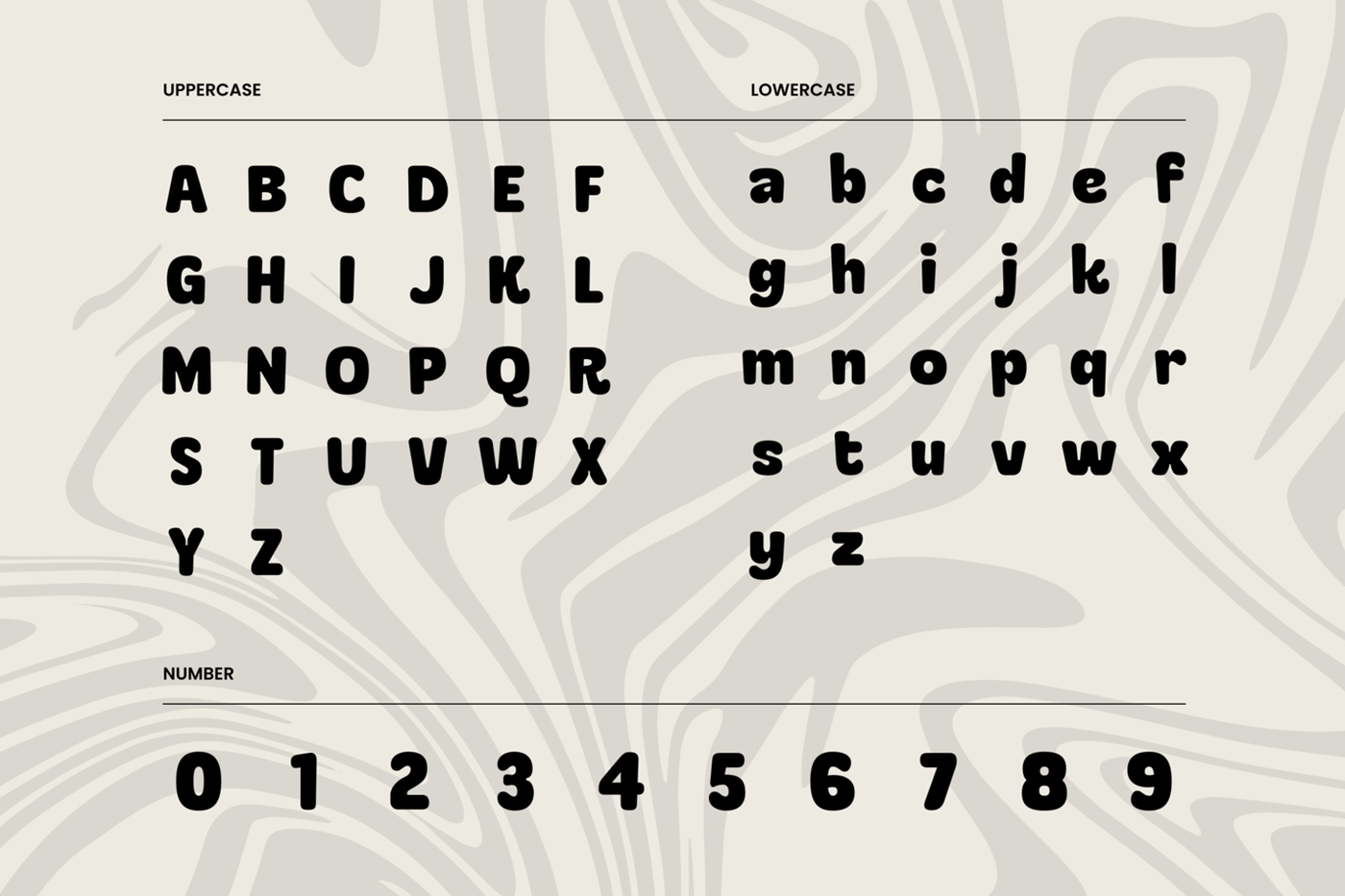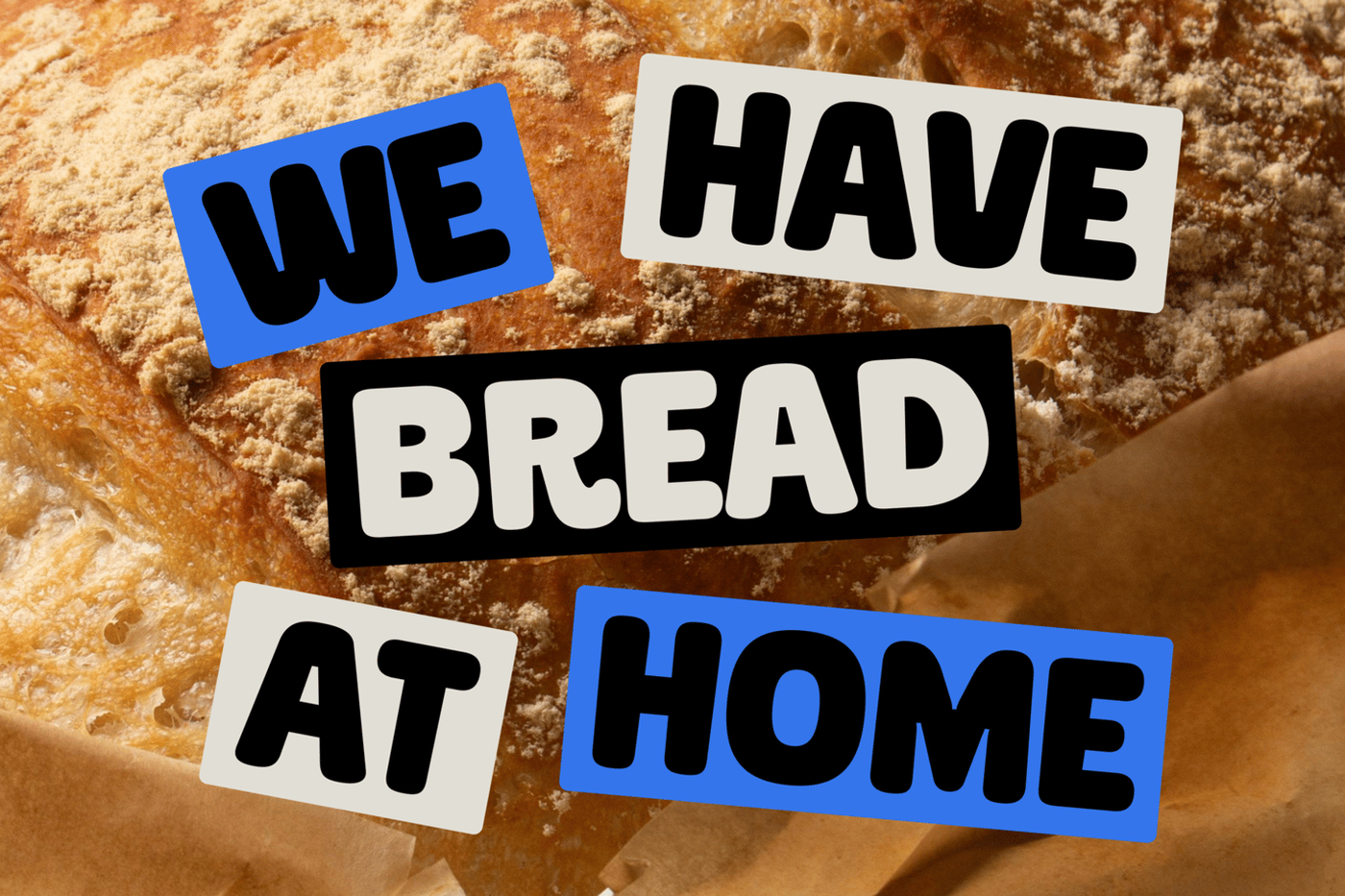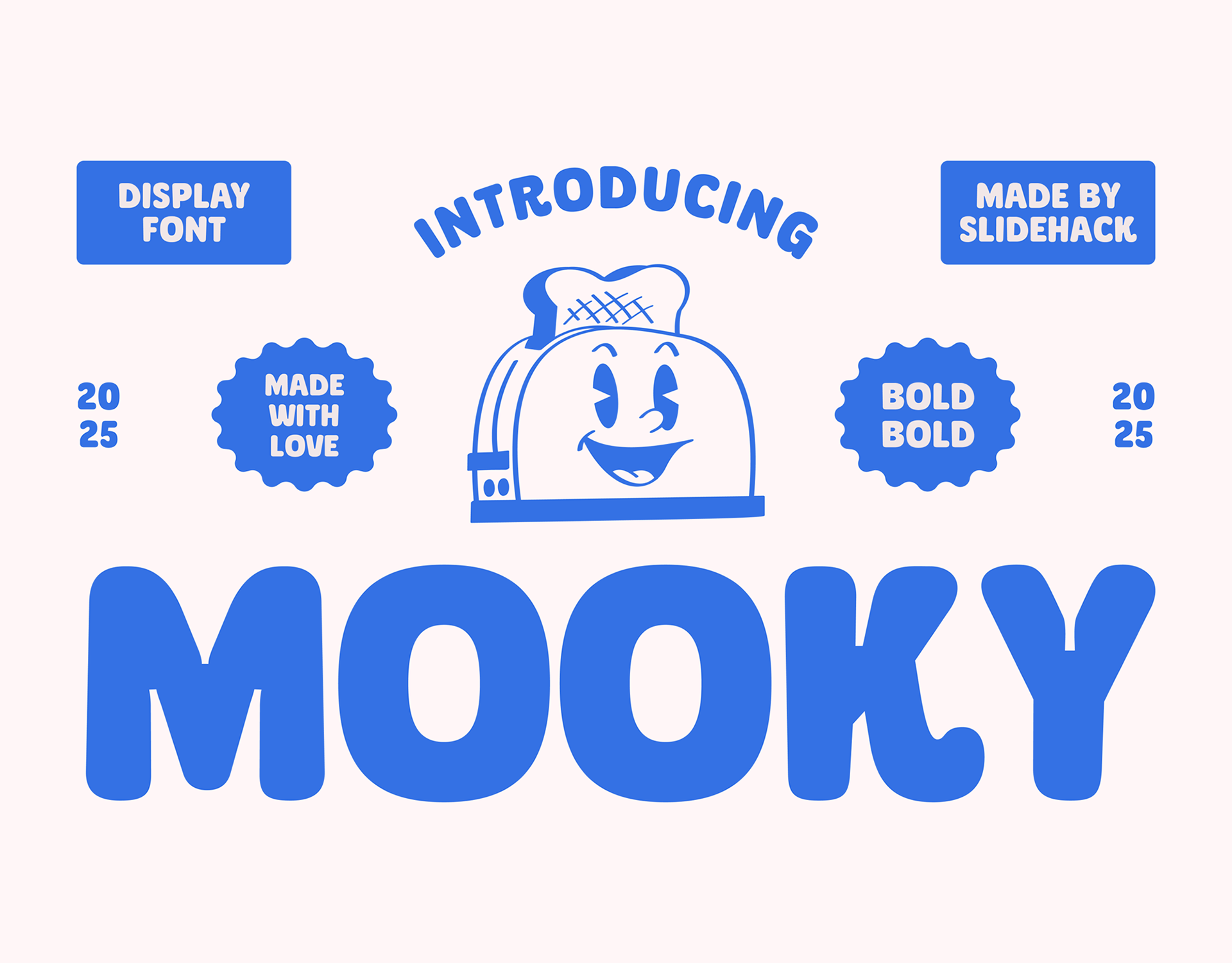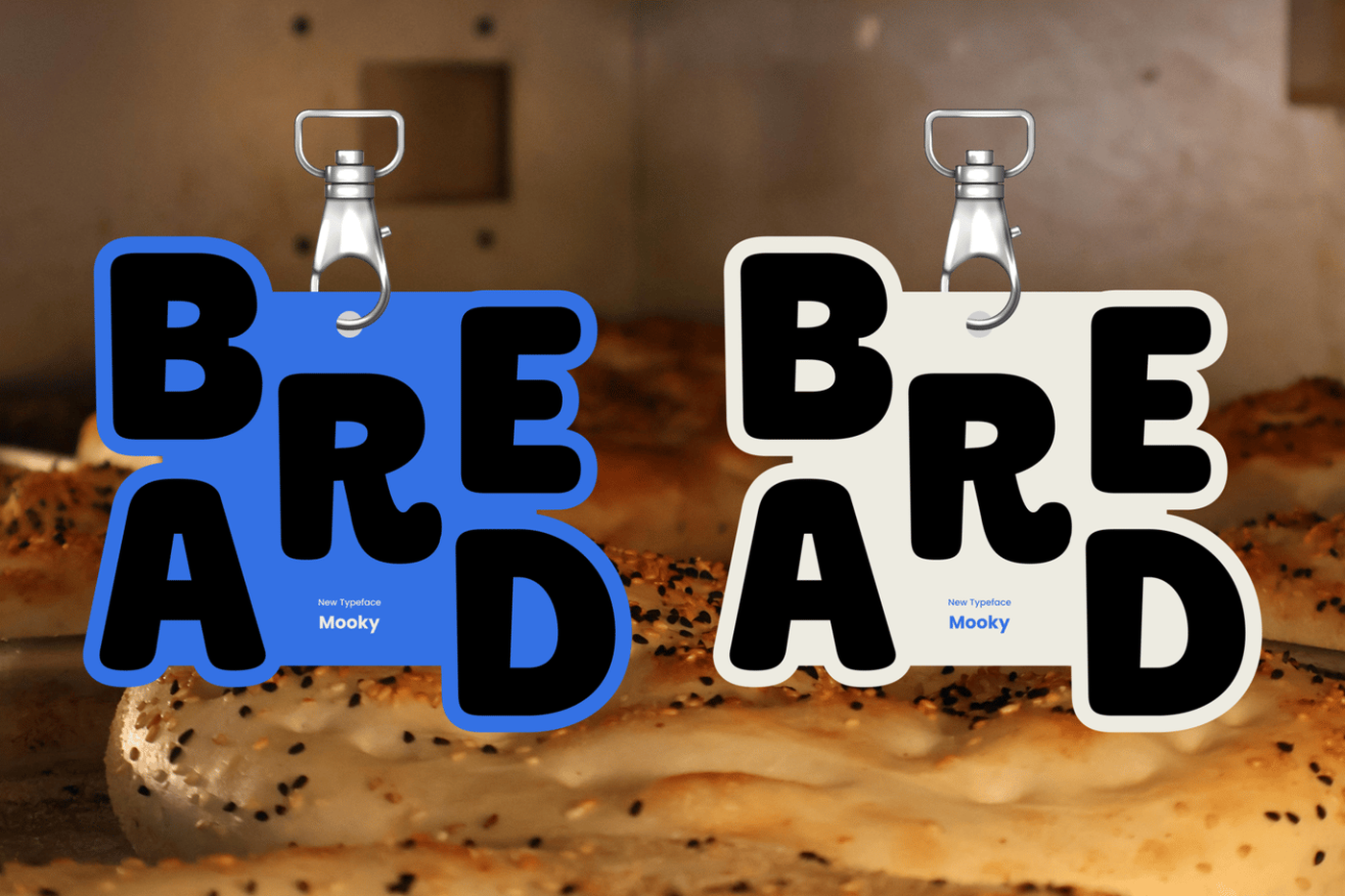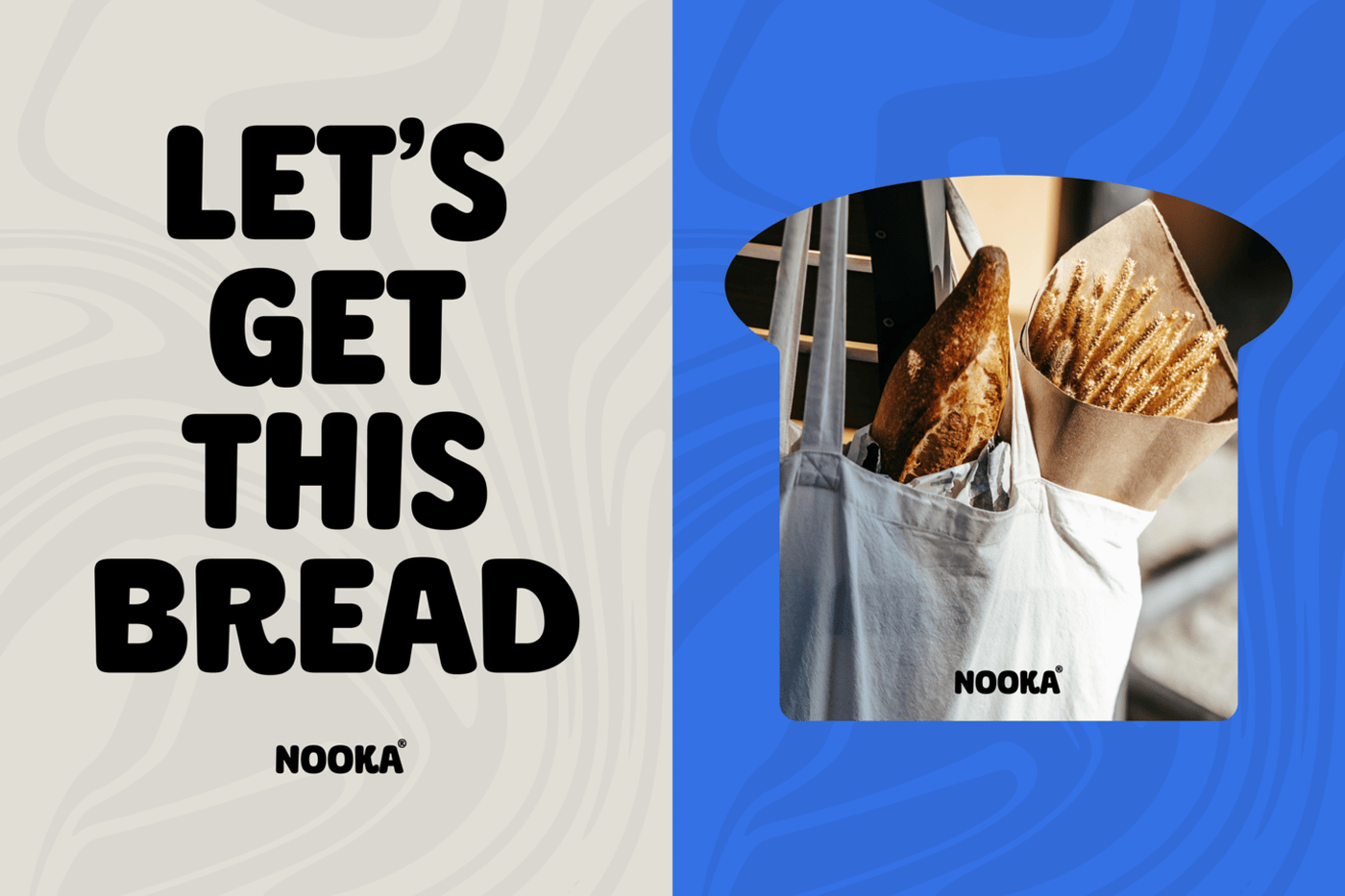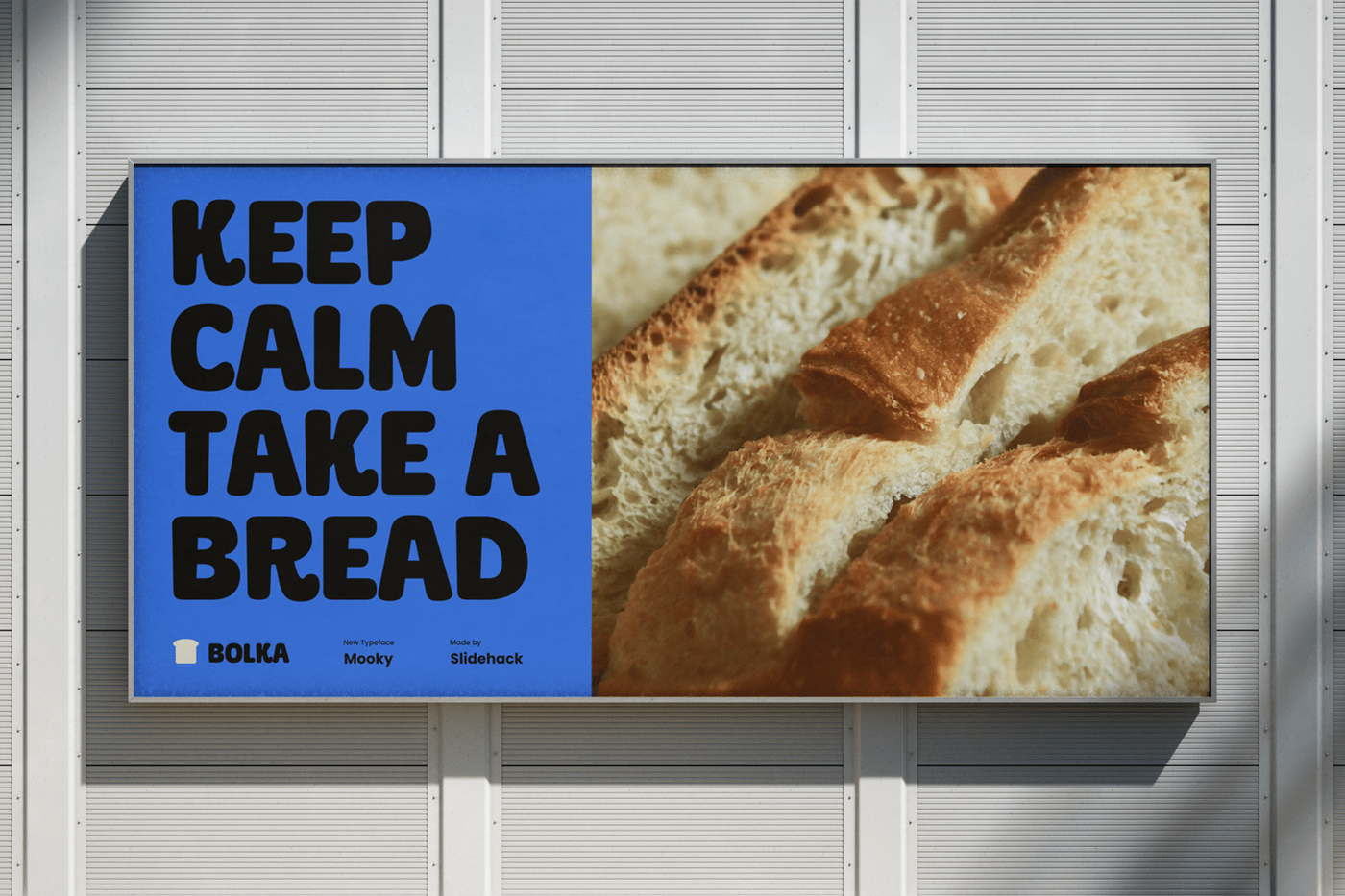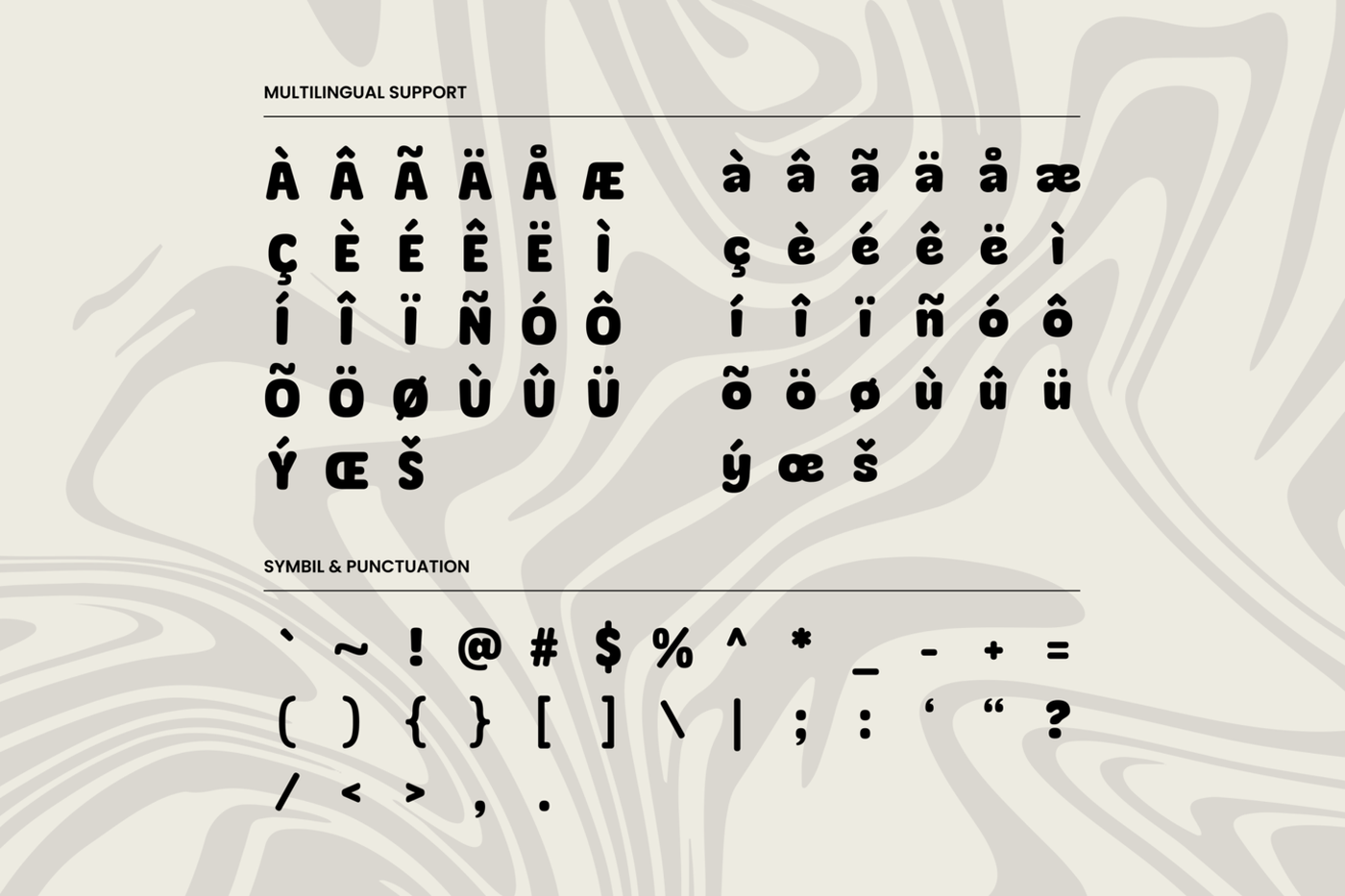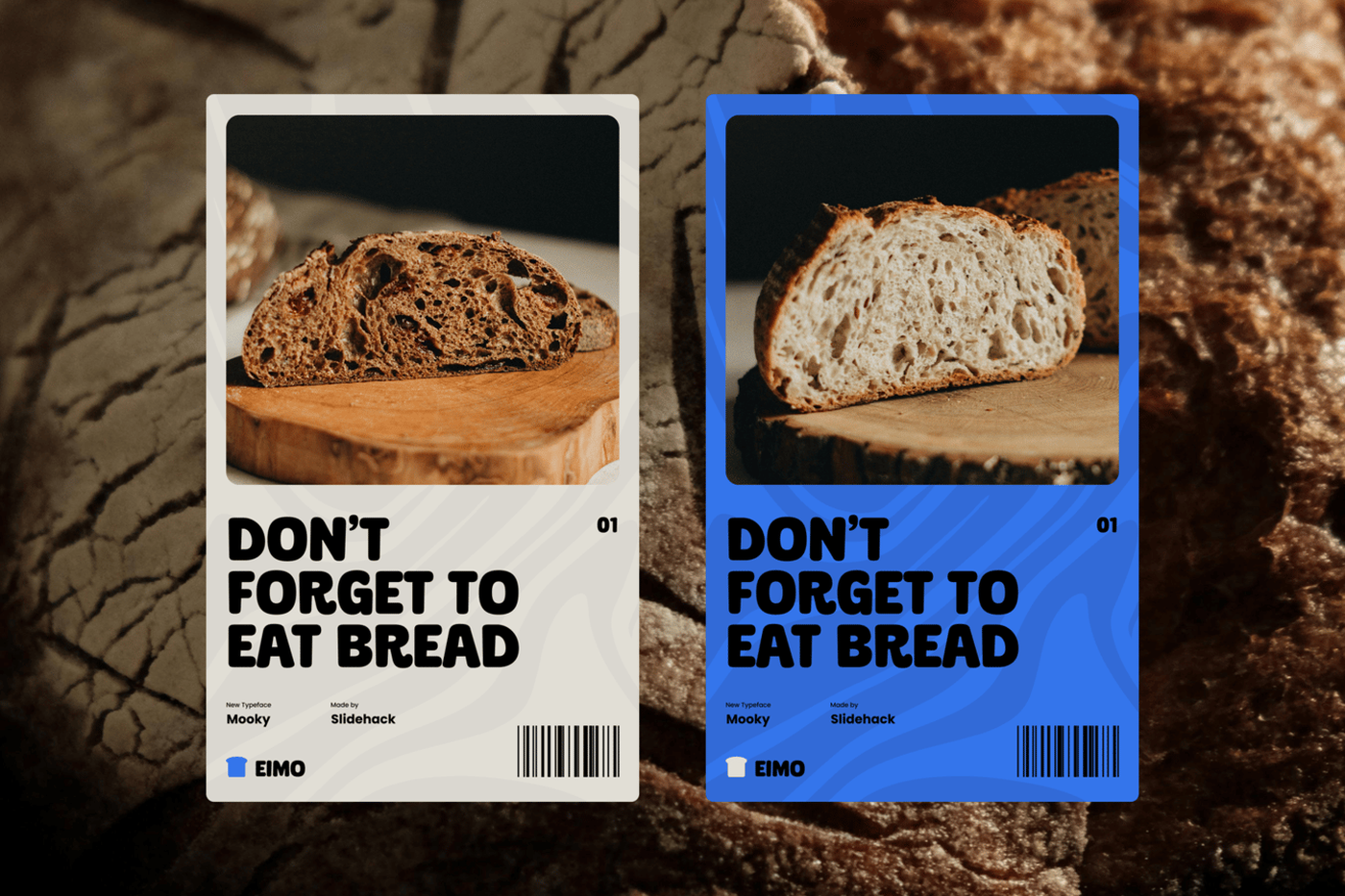
Mooky - Bold Display Font
Mooky is a bold display font with a soft and rounded style, designed to bring a cheerful and retro vibe to your projects. Perfect for logos, packaging, posters, and playful branding. This friendly and eye-catching font adds personality and warmth to any creative design effortlessly.
Designer: Slidehack
Font: Mooky